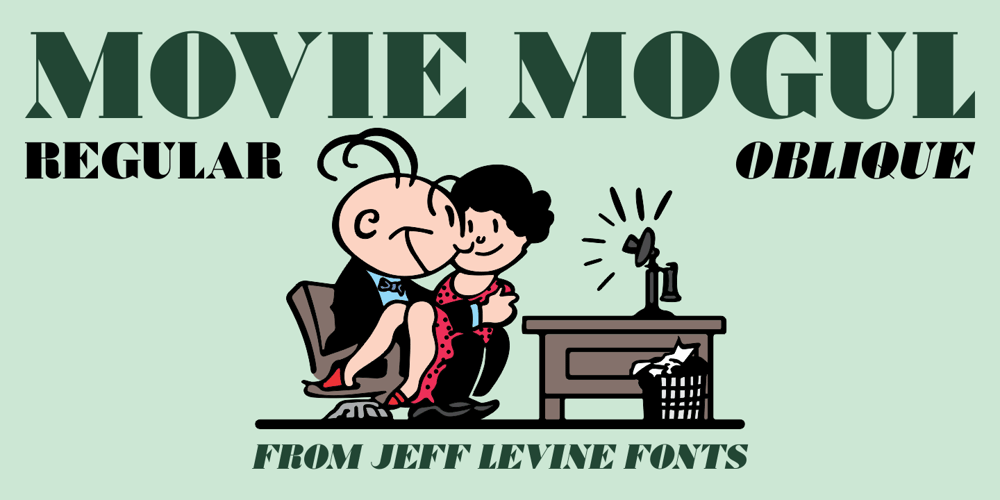
Movie Mogul JNL Font Family was designed by Jeff Levine and published by Jeff Levine. Movie Mogul JNL contains 2 styles and family package options. An ad for Paramount Pictures in the Dec. 8, 1928 issue of Motion Picture News offered up a hand lettered bit of ad copy in an extra bold serif design with Art Deco influences.This now available as Movie Mogul JNL in both regular and oblique versions.